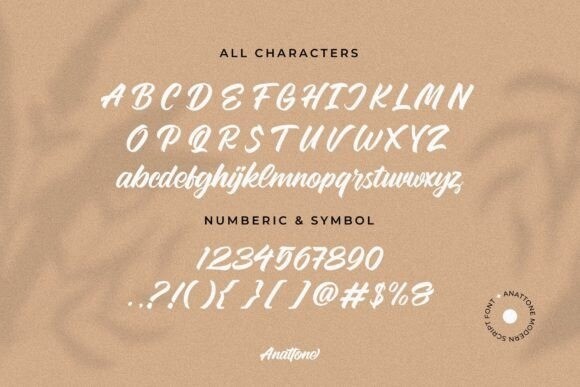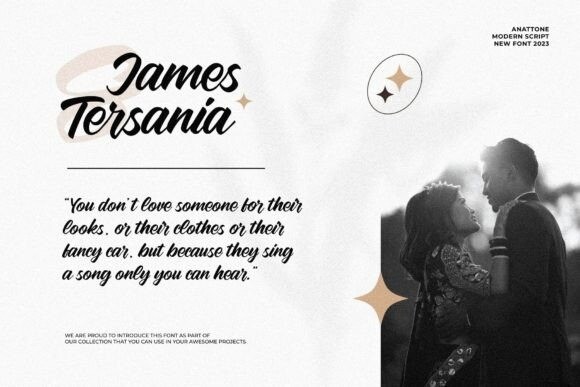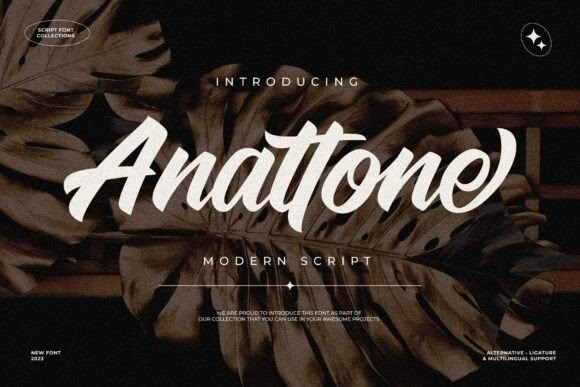
Anattone Font
Designer: Lettermine
Anattone Font is a stylish script font that embodies sophistication and grace. With its fluid, sweeping letterforms, this font exudes a timeless elegance and adds a touch of glamour to any project. Ideal for conveying luxury and refinement, Anattone elevates your designs with its captivating aesthetic.